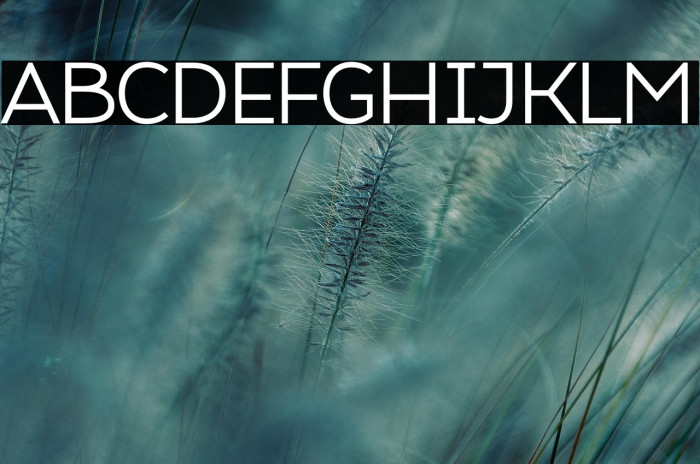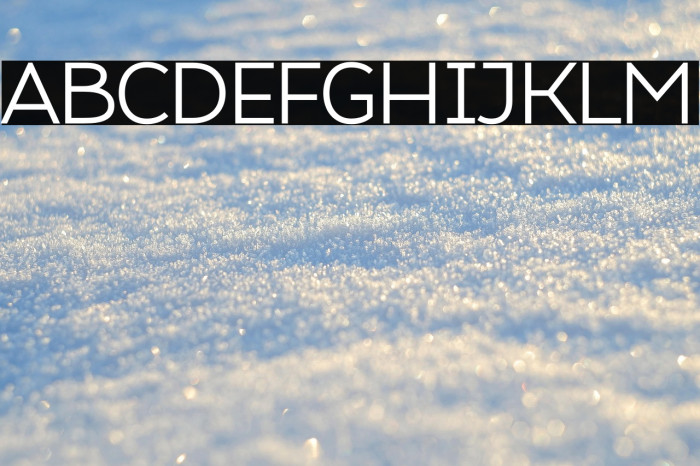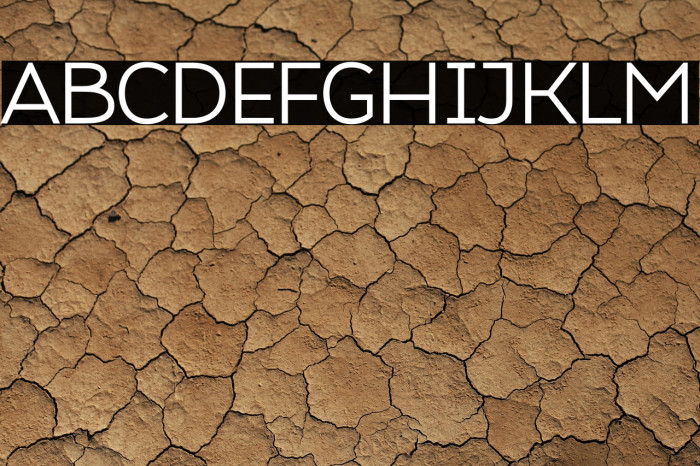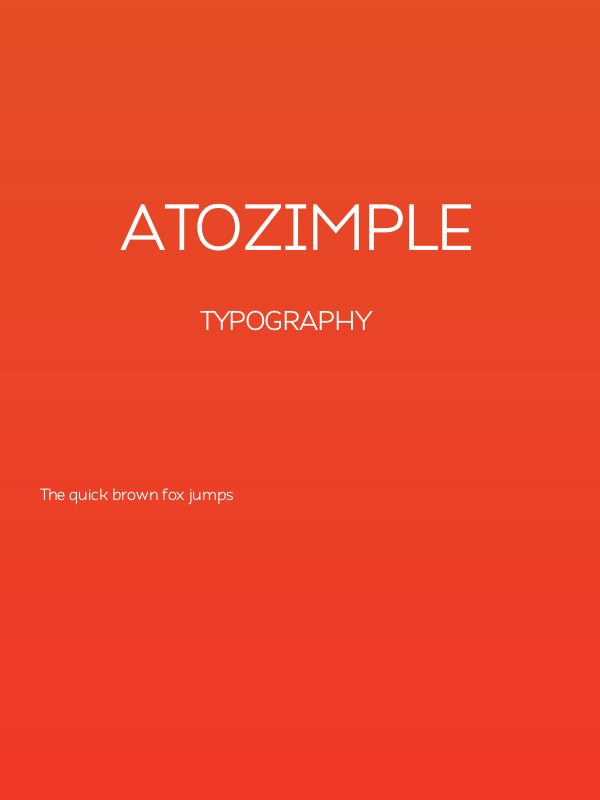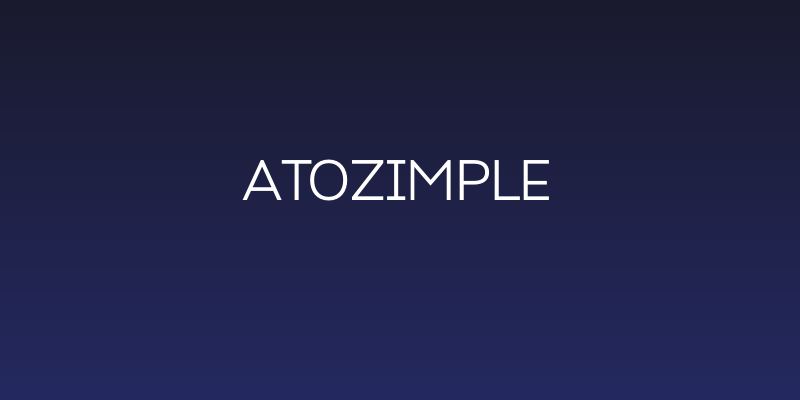
Atozimple Font
Atozimple Description
This font is a clean and modern sans-serif typeface characterized by its simplicity and readability. The letters are evenly spaced with a consistent stroke width, providing a balanced and harmonious appearance. The design is straightforward, with minimalistic features that make it versatile for various applications. The uppercase and lowercase letters maintain a uniform style, while the numerals and special characters are clear and distinct, ensuring legibility across different mediums. Its geometric shapes and smooth curves contribute to a contemporary aesthetic, making it suitable for both digital and print use.
| Proposed Projects | Ideal for branding, web design, advertising, and editorial layouts due to its clarity and modern appeal. |